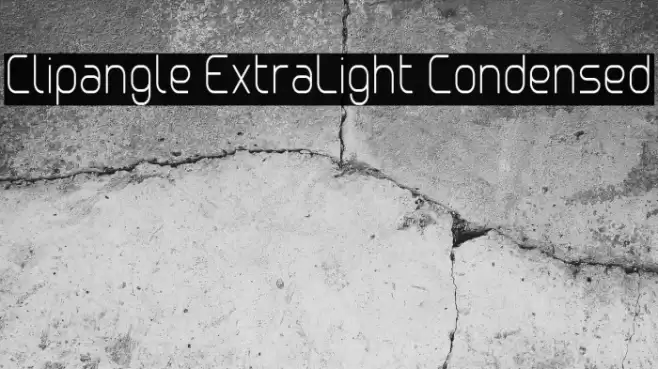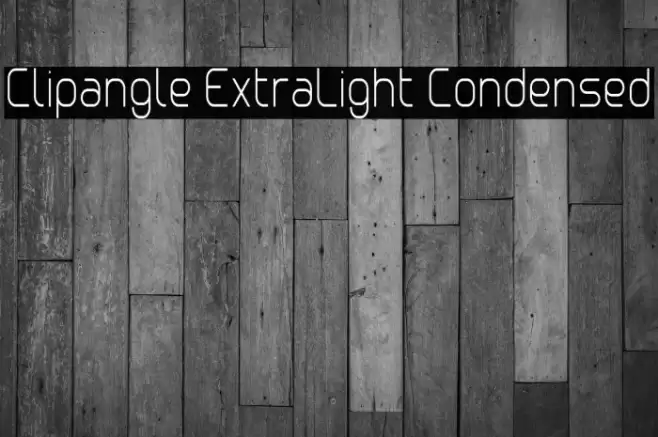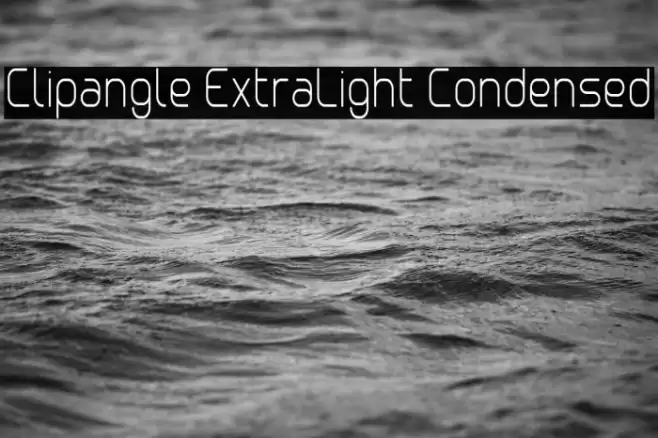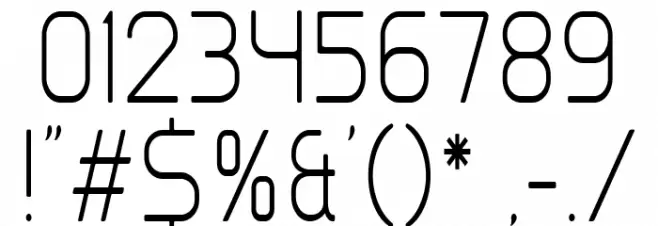
Clipangle ExtraLight Condensed Font
Clipangle ExtraLight Condensed Description
This font features a sleek and modern design with an extra light weight and condensed width. The characters are crafted with a minimalist approach, showcasing clean lines and a geometric structure. The uppercase and lowercase letters maintain a consistent height, contributing to a uniform appearance. The numerals are designed with the same attention to detail, ensuring readability and style. Special characters are included, each maintaining the font's overall aesthetic. This font is ideal for projects that require a contemporary and sophisticated look.
A sleek, extra light, and condensed font with a modern geometric design from Regular fonts.
- Proposed Projects: Ideal for branding, editorial design, and digital interfaces where a modern and clean aesthetic is desired.